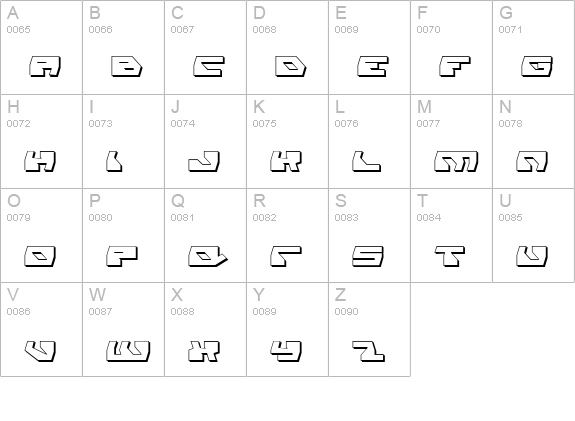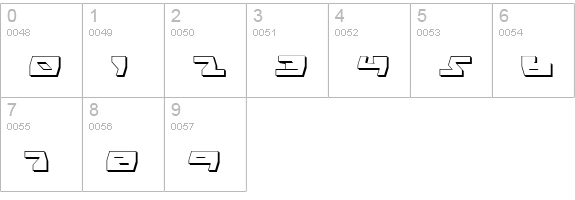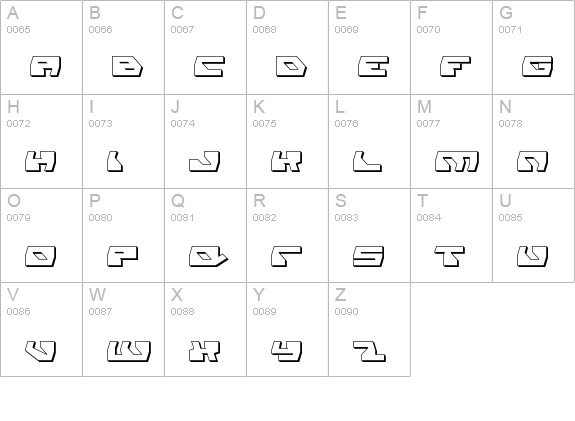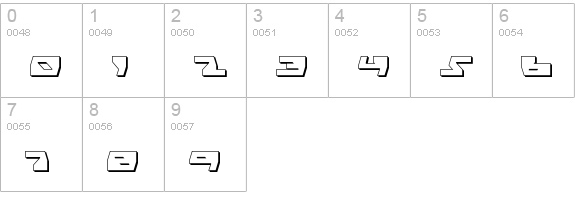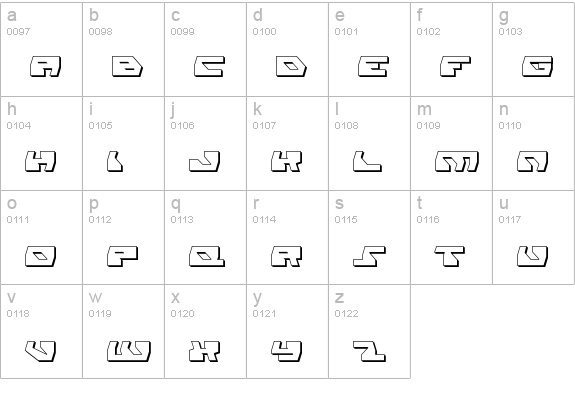
Daedalus Shadow Font Details
Daedalus Shadow font is a unique and captivating typeface that exudes an air of mystery and sophistication. Its intricate design features sharp edges and intricate shadows, giving it a bold and striking appearance that is sure to make any text stand out. Whether you're designing a poster, logo, or website, Daedalus Shadow font is the perfect choice to add a touch of drama and elegance to your project. And the best part? Daedalus Shadow font is completely free to download at FontsMarket.com! Yes, you read that right - you can easily access this stunning font at no cost, making it a fantastic option for both personal and commercial use. Don't miss out on the opportunity to enhance your designs with the alluring charm of Daedalus Shadow font - download it now and let your creativity soar!